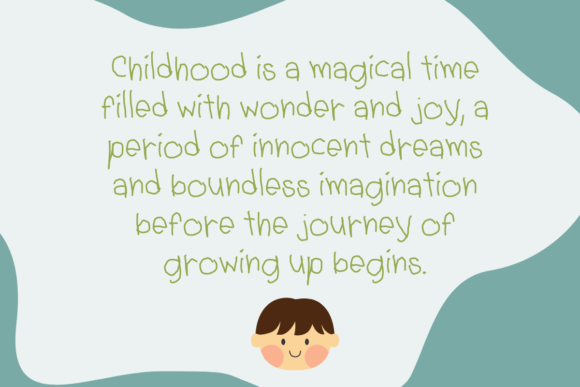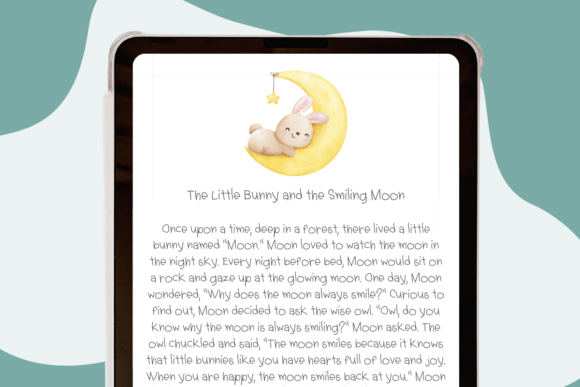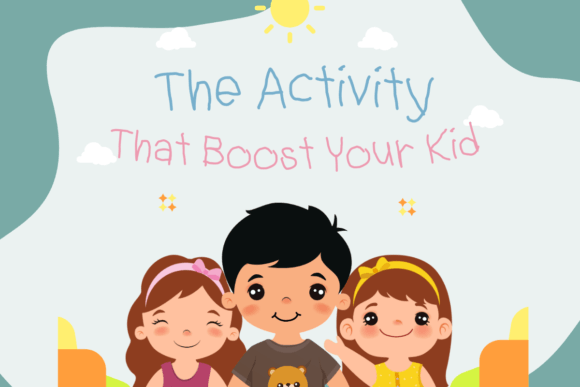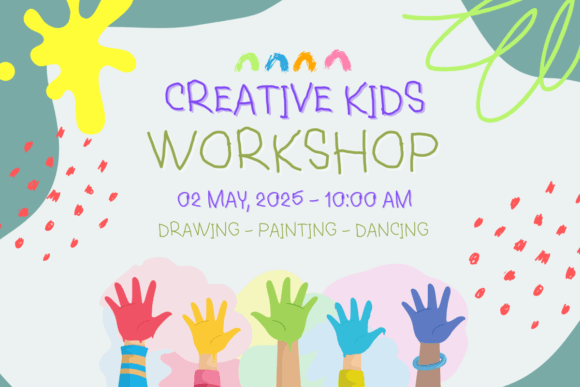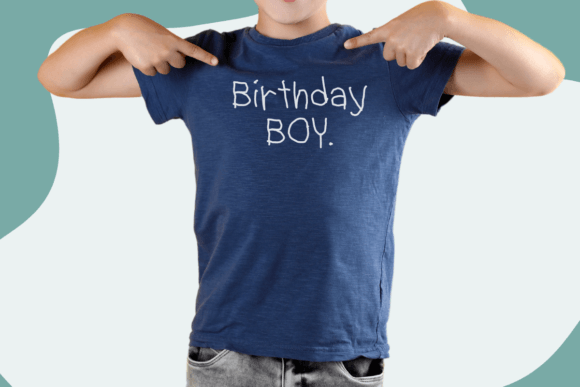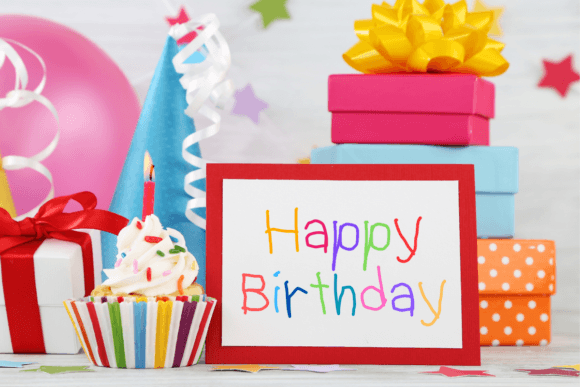
Introduction to Child Write Font
Child Write Font is a playful and cute handwritten font, perfect for digital note-taking.
Its versatility makes it ideal for various projects such as Procreate designs, blog posts, logos, branding, digital planners, invitations, greeting cards, photo albums, and much more .
Key Features of Child Write Font
Why Choose Child Write Font?
Child Write Font offers exceptional quality and versatility, making it a valuable addition to your design toolkit. Whether you’re creating for personal projects or commercial use, Child Write Font delivers professional results.